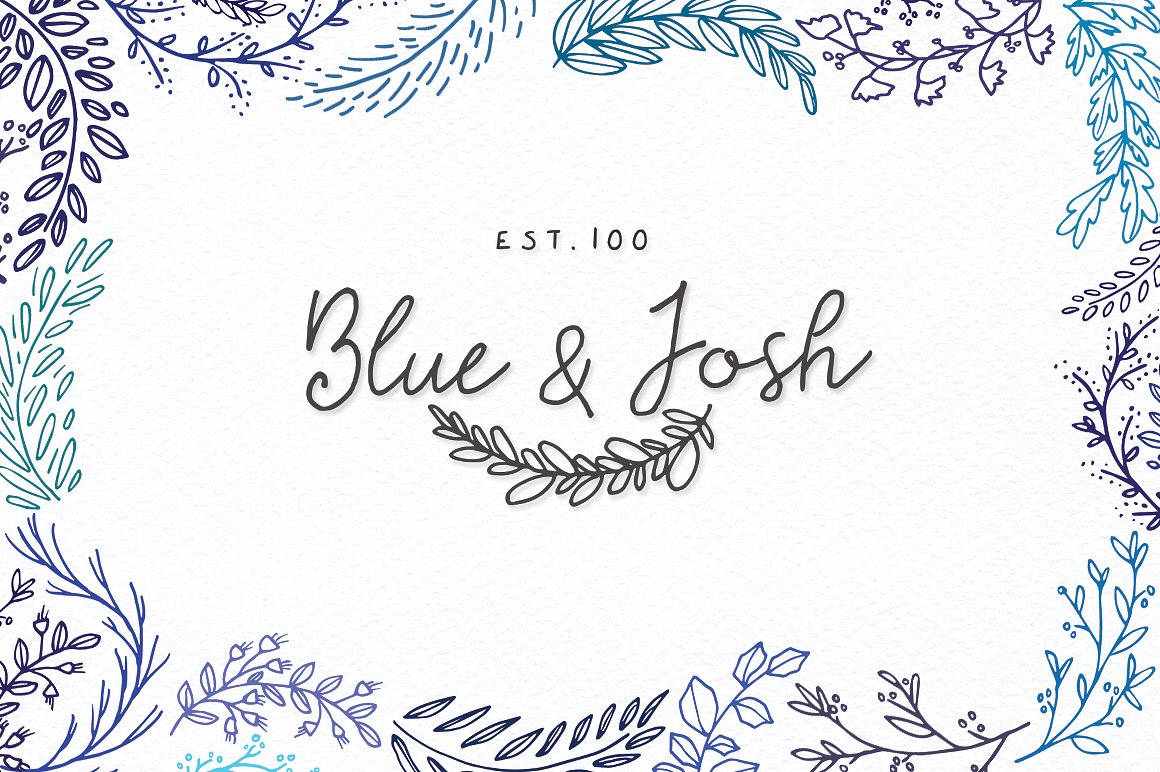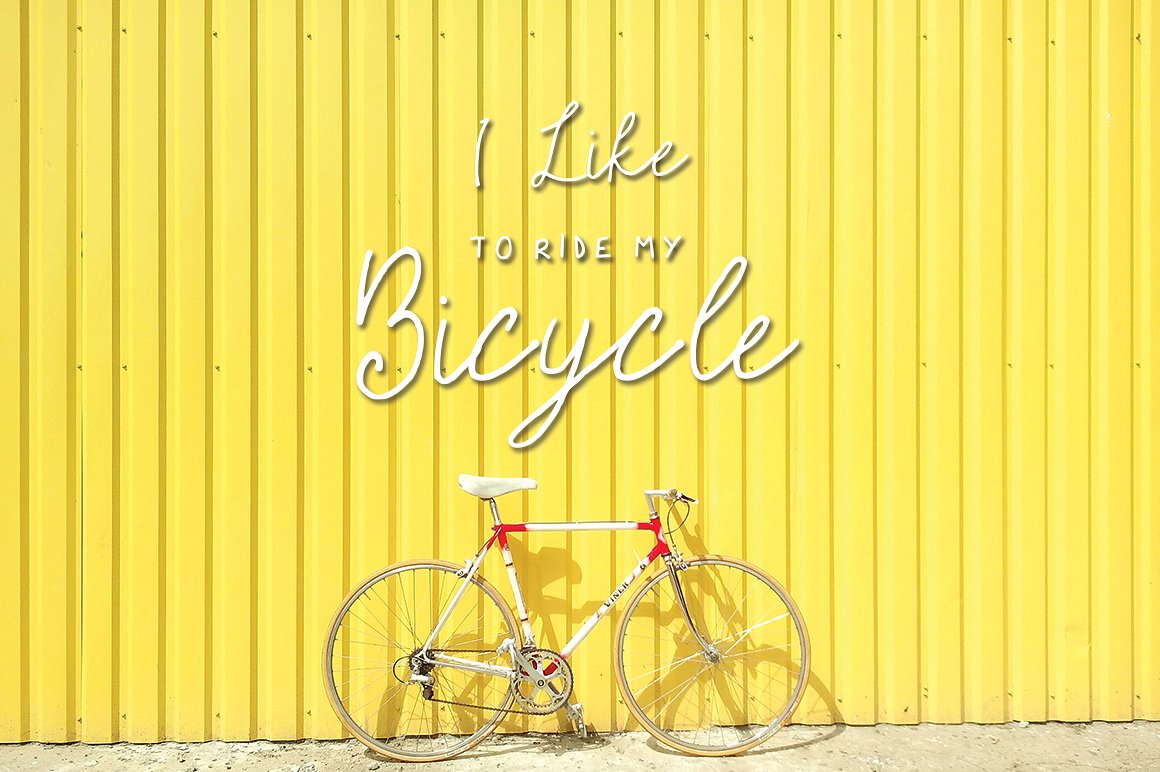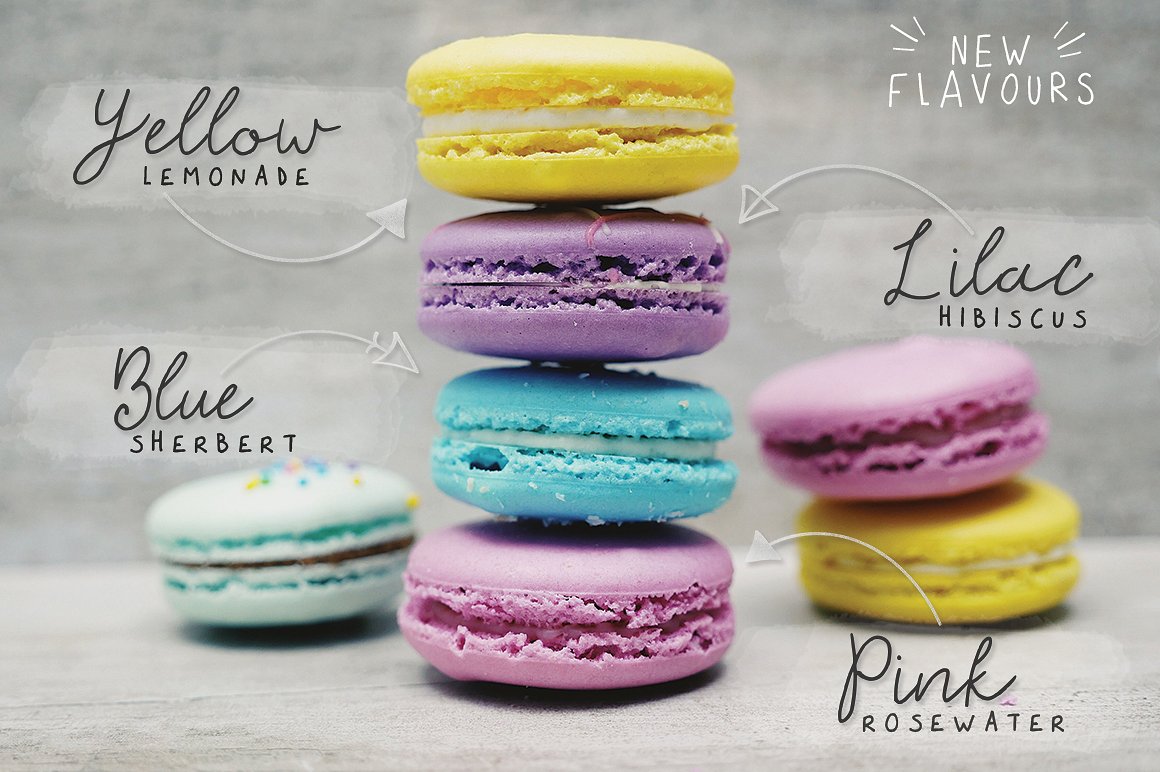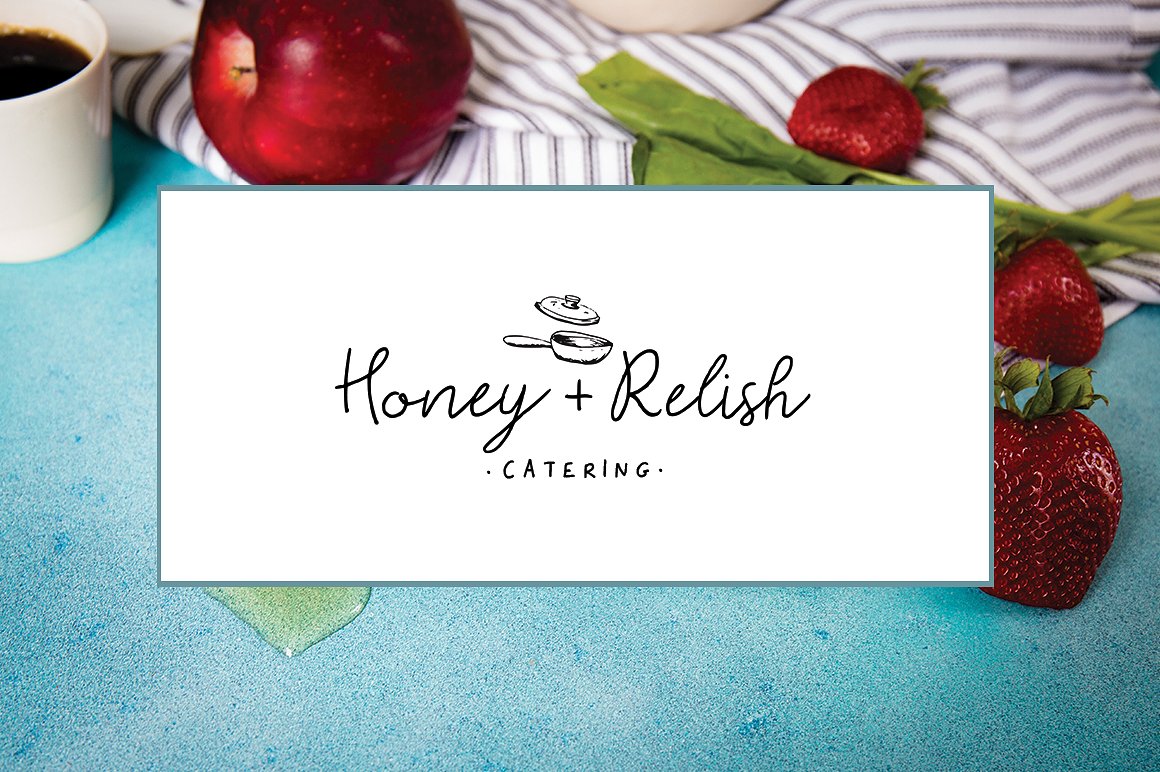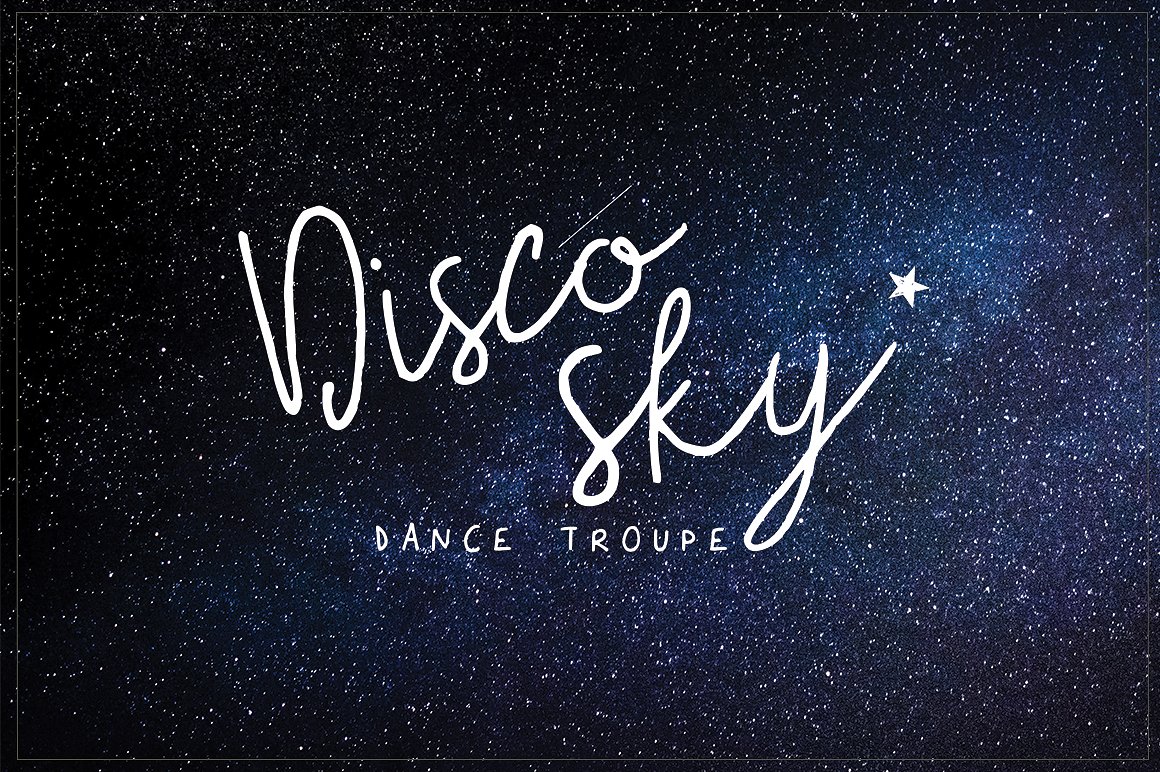
Introducing Disco Queen Font: The Ultimate Accessory for Your Designs
Are you tired of using the same old fonts in your designs? Do you want to add a touch of glamour and fun to your projects? Look no further than Disco Queen Font, a fabulous new script font that’s sure to be the centre of attention!
What is Disco Queen Font?
Disco Queen Font is a completely versatile script font that’s perfect for adding a dash of personality to your designs. With its playful and fun vibe, this font is ideal for quotes, headers, and more. Whether you’re a designer, crafter, or DIY enthusiast, Disco Queen Font is sure to become your new go-to font.
Key Features of Disco Queen Font
- Fun and Fabulous: Disco Queen Font is the perfect font for anyone who wants to add a touch of glamour and fun to their designs.
- Completely Versatile: This font can be used for a wide range of projects, from quotes and headers to signs and crafts.
- Script Font: Disco Queen Font is a script font that’s perfect for adding a touch of elegance and sophistication to your designs.
Uses for Disco Queen Font
Disco Queen Font is a versatile font that can be used for a wide range of projects, including:
- Quotes: Use Disco Queen Font to add a touch of glamour and fun to your quotes.
- Headers: This font is perfect for creating eye-catching headers for your blog posts, articles, and more.
- Crafts: Disco Queen Font is a great font to use for crafting projects, such as making signs, cards, and other DIY projects.
- Signs: Use this font to create eye-catching signs for your business, event, or party.
Why Choose Disco Queen Font?
There are many reasons why you should choose Disco Queen Font for your next project. Here are just a few:
- Unique: Disco Queen Font is a unique font that’s sure to make your designs stand out.
- Fun: This font is perfect for anyone who wants to add a touch of fun and personality to their designs.
- Versatile: This font can be used for a wide range of projects, making it a great addition to your font collection.
Tips for Using Disco Queen Font
Here are a few tips for using Disco Queen Font in your designs:
- Use it for Headlines: Disco Queen Font is perfect for creating eye-catching headlines that will grab attention.
- Pair it with Other Fonts: This font pairs well with other fonts, making it easy to create a unique and stylish design.
- Experiment with Colors: Disco Queen Font looks great in a variety of colors, so don’t be afraid to experiment and find the perfect color for your design.